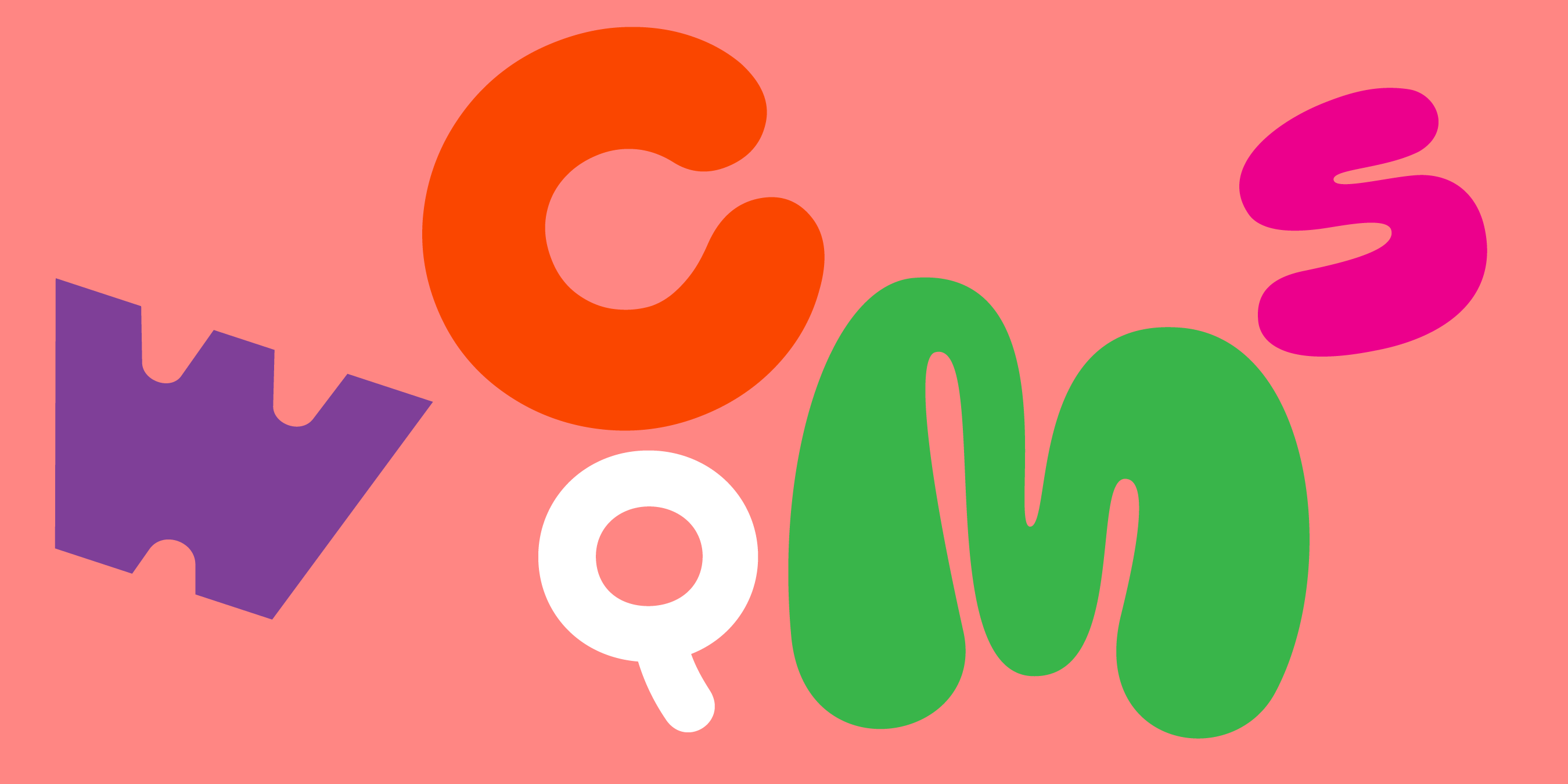
6 cute bubble fonts for playful, modern designs
Cute bubble fonts are typefaces that feel bubbly and friendly without being loud or edgy. They’re perfect for display use, like logos and headlines, but they’re not just for kids’ projects—they can work in many designs that aim for fun and approachability.
These fonts are typically very rounded, and they get even cuter when their letter shapes are wider and more open. Bold weights give off a chubbier, cozier vibe, while lighter bubble fonts feel more grown-up but stay playful.
Below, we’ve listed six unique and modern options, each with its own style and ideal use case. Let’s take a closer look at how they work best across different project types.
Miox: A groovy bubble font with endless alternates
Miox, groovy bubble font
Miox is a true bubble type with a groovy font characteristic and lots of alternate glyphs to create cute, unique designs.
Skay: The perfect bubble font for bold logos
Skay, bubble font for cute fashion
Skay is our topseller bubble font in uppercase letters for logos and headlines. Like all of our fonts, Skay is available in 9 weights but is most bubbly in bolder weights—the lighter weights are more inky and handwritten in style.
Bauhaus Vole: Fun geometric shapes with squishy counters
Vole font, rounded counters for cute logos
Vole is not a classy rounded bubble font because its outer forms are taken from a geometric sans-serif typeface, but its fun, overly rounded inner shapes (counters) resemble bubble or fluid, making this design squishy from the inside. Best for branding projects.
Goji: A rounded font with playful letter alternates
Rounded font Goji with alternates for cute designs
Goji is a classic rounded sans-serif font with fun letter O alternates to create cute, playful logos and headlines. It’s also a fine text font for shorter snippets for brands that want to communicate approachability. Brands like Crocs and Hello Kitty use this font style.
Lace Rounded: A handwritten font with rounded finials
Lace Rounded font with rounded finials
Lace Rounded is a sister font to Lace. While Lace has straight cut-off finials, Lace Rounded ends in, like the name says, rounded finials. Lace is a handwritten one-line style typeface with a wide, open frame for an extra on cute design.
Loco: A playful bubble font inspired by Cocomelon
Loco, playful bubble font with highlights
Loco has taken its inspiration from Cocomelon. It’s a cute bubble font with highlights for a 3D effect. Some letters are tilted to add playfulness.